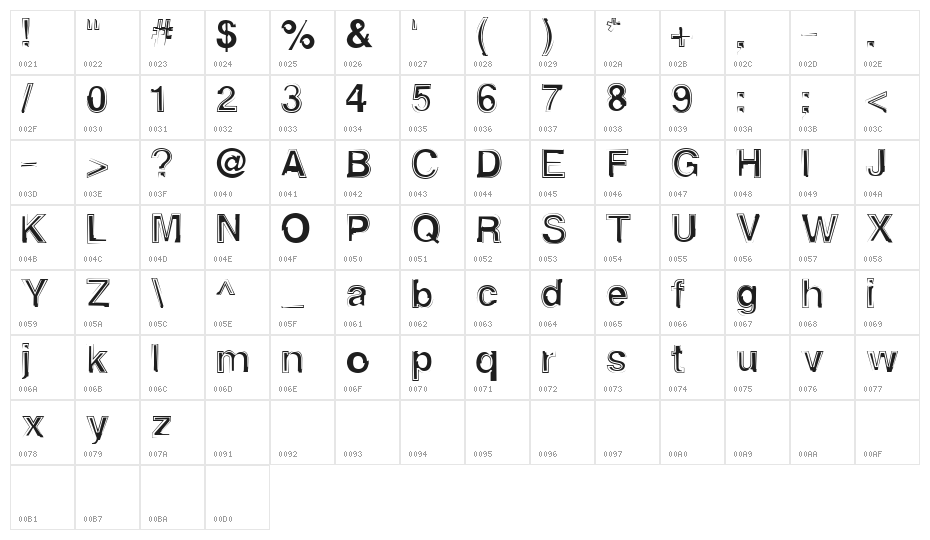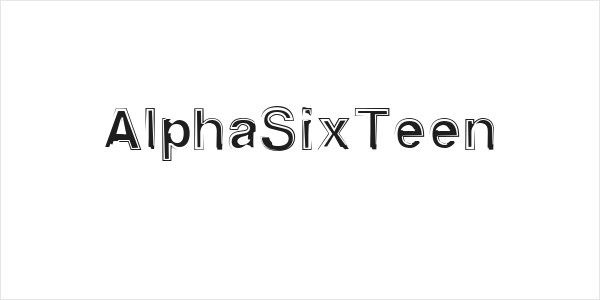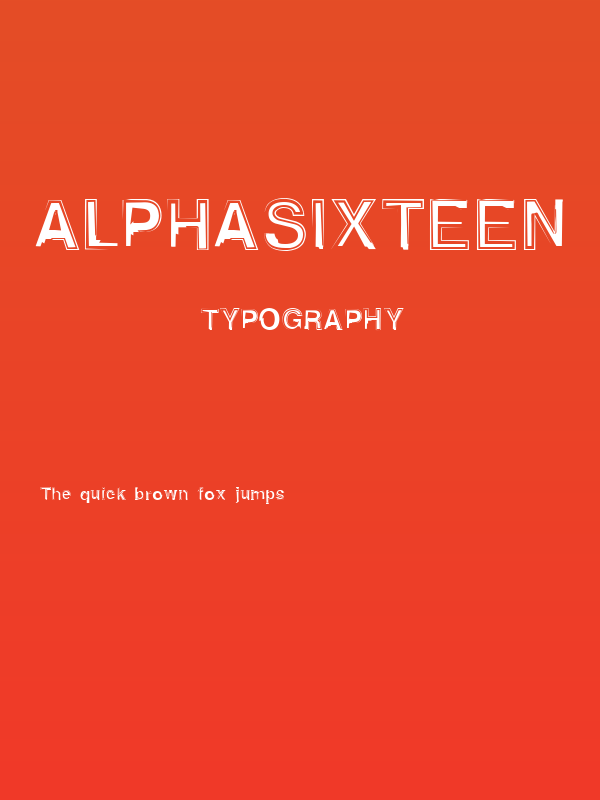
AlphaSixTeen Font
AlphaSixTeen Description
This font features a bold, three-dimensional look with a distinct shadow effect that gives it a dynamic and eye-catching appearance. The uppercase and lowercase letters maintain a consistent style, with clean lines and a modern aesthetic. The numbers and special characters follow the same design principles, ensuring uniformity across all elements. The font's unique shadowing adds depth, making it ideal for projects that require a standout visual impact. Its structured form and clear legibility make it suitable for various design applications.
| Proposed Projects | Ideal for posters, headlines, branding, and any design needing a bold statement. |